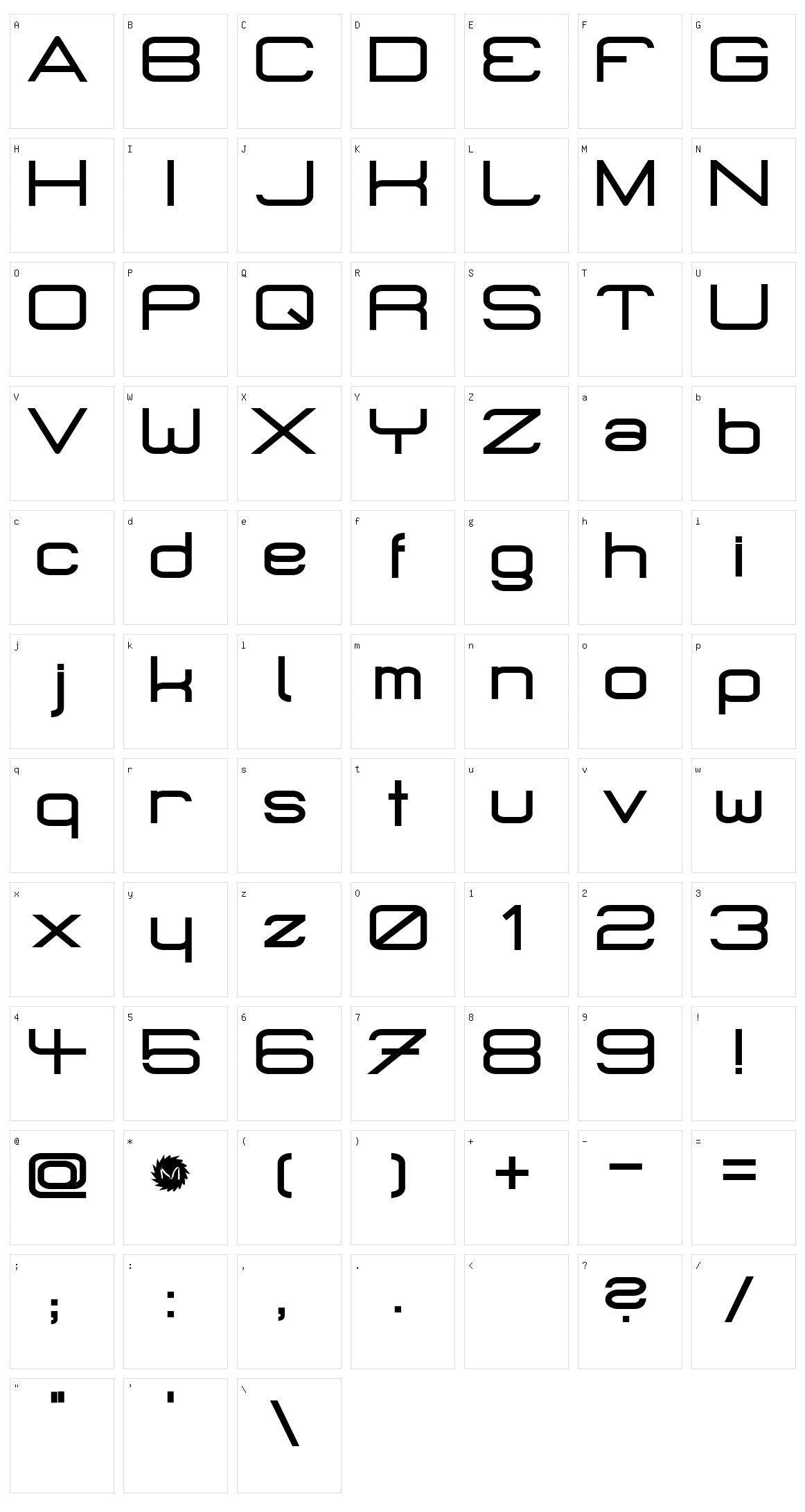
The free font Micro Mieps is carefully designed by Mieps, showcasing a thoughtful balance of creativity and usability and falls under the Sans serif font style. When you download the ZIP file, it contains only 44.14 KB of font files, making it lightweight and quick to download. Please review the license details below to understand permitted usage and distribution rights. If license information is not available, we recommend using this font for personal projects only or contacting the author directly for commercial usage permissions.